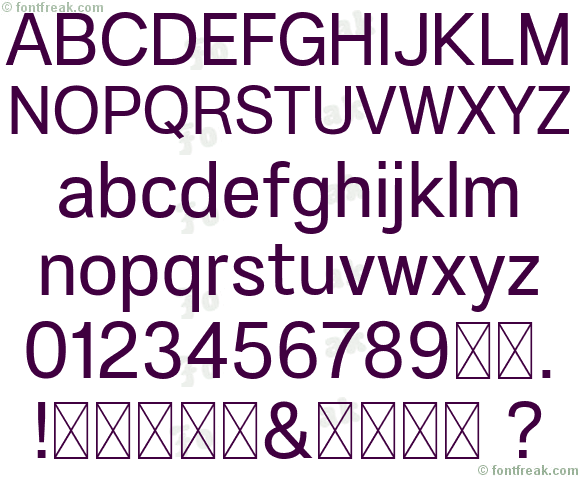
Avergent-Regular
About Avergent-Regular
Avergent-Regular, designed by Mukhlis Muhammad, is a contemporary sans-serif font characterized by its clean lines and modern aesthetic. This typeface stands out with its balanced stroke weight and minimal contrast, creating a harmonious visual appeal that is both approachable and professional. The font features generous spacing, enhancing readability and making it suitable for a variety of applications. The simplicity of its design is complemented by subtle geometric elements, giving it a unique flair without overwhelming the viewer.
The Avergent-Regular font is versatile, making it ideal for various use cases. Graphic designers can leverage this typeface for branding projects, as it conveys a sense of modernity and clarity. Small business owners may find it perfect for creating eye-catching signage or promotional materials that need to capture attention while remaining legible. Content creators can utilize Avergent-Regular in digital media such as blogs and social media graphics, where readability is crucial. Additionally, the font's sleek style makes it suitable for restaurant menus, ensuring that the text is both attractive and easy to read.
What sets the Avergent-Regular font apart is its ability to blend modern design with functionality. The thoughtful design choices made by Mukhlis Muhammad create a typeface that is not only aesthetically pleasing but also highly practical for various applications. For those seeking a versatile typeface, the Avergent-Regular font free download is an excellent option that will elevate any design project.